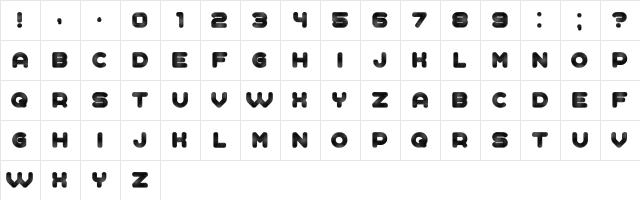
Complained Regular Font Preview
Complained Regular
Design Context for Complained Typeface
Complained takes a measured approach to typography — its balanced proportions and neutral character make it a reliable workhorse for both digital and print work.